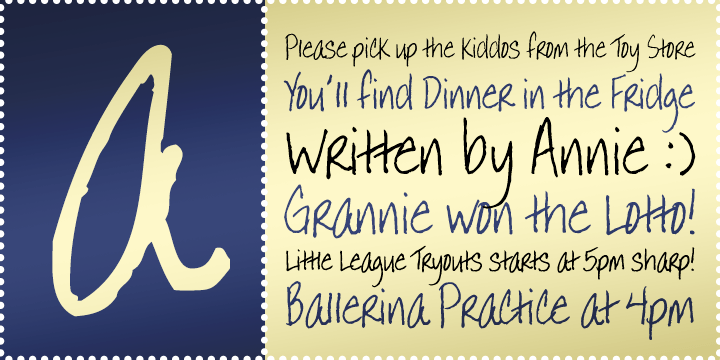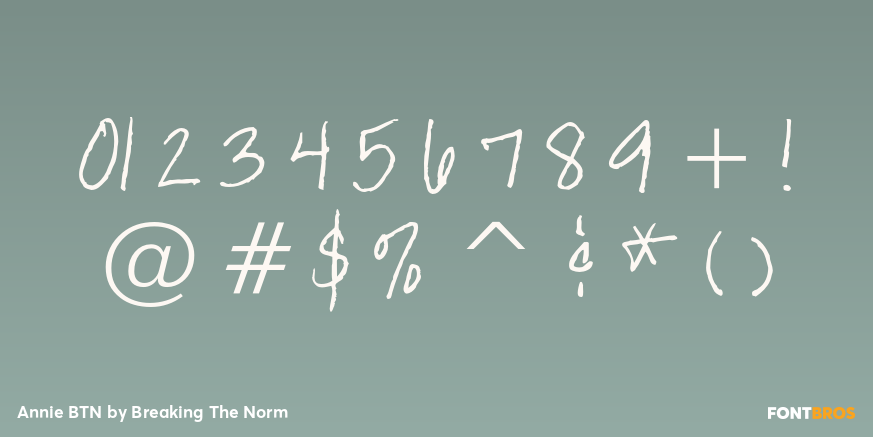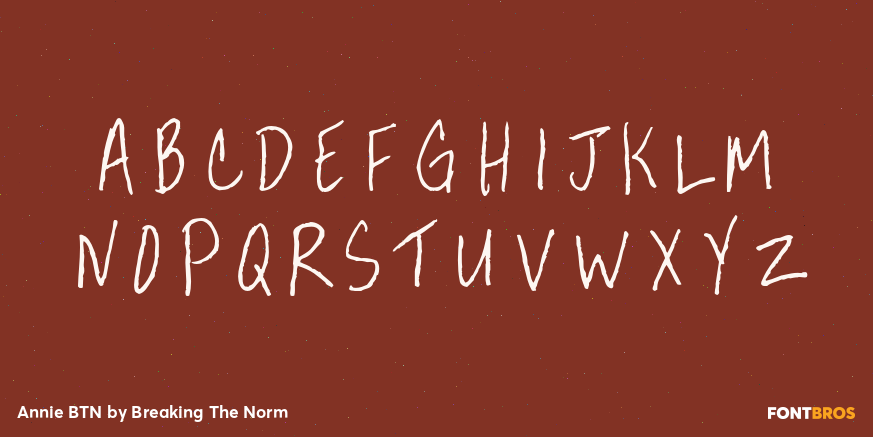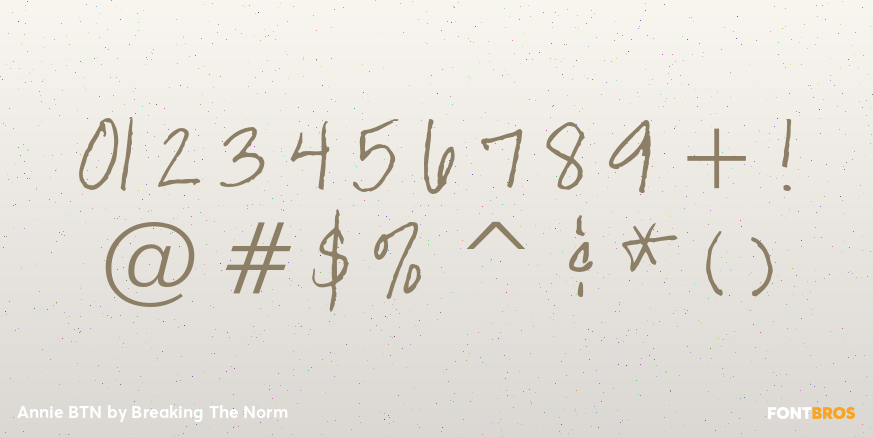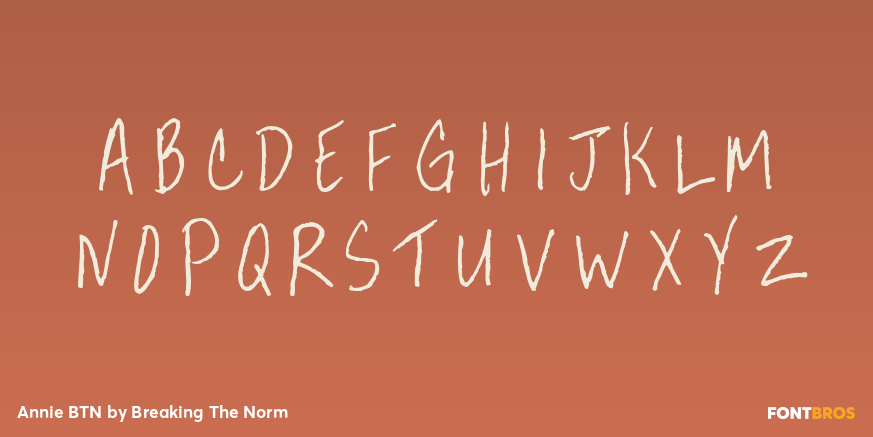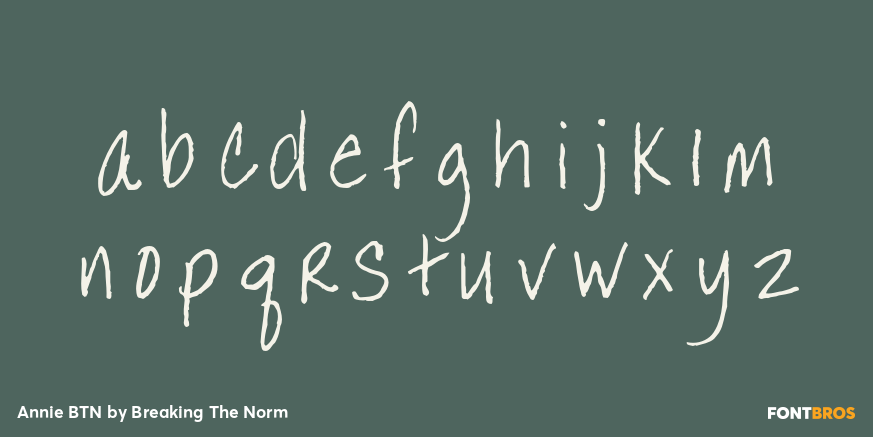
Annie BTN
Font Family by Breaking The Norm
Annie BTN is a friendly handwritten script with a warm, casual personality. Inspired by the easygoing look of feminine everyday handwriting, it brings a personal and approachable feel to designs. Annie BTN is especially well suited for scrapbook journaling, greeting cards, invitations, craft packaging, blog graphics, social media, quotes, and informal branding. Its natural handwritten style gives layouts a relaxed human touch that feels both playful and sincere.